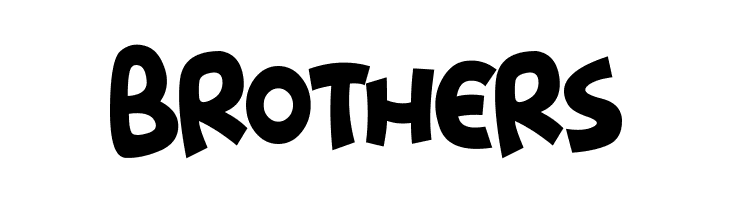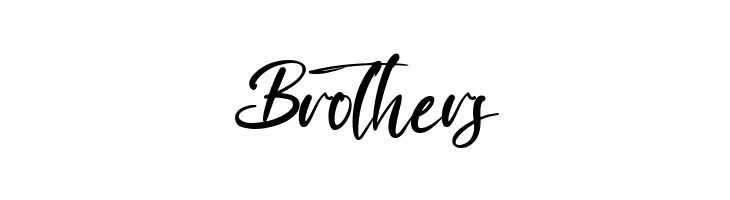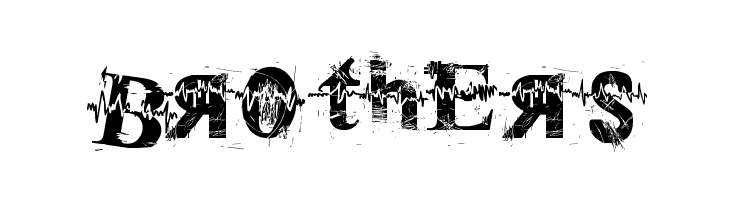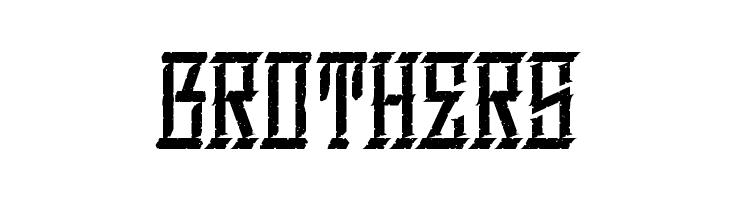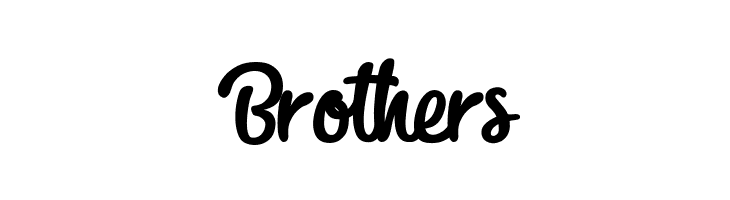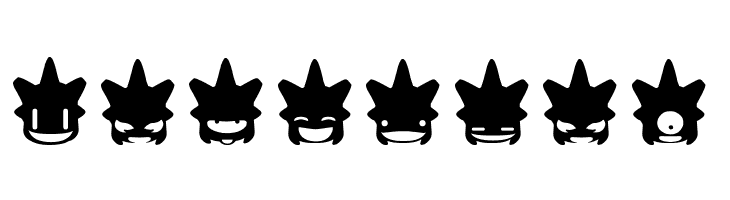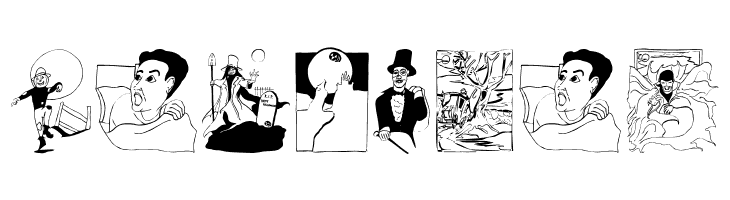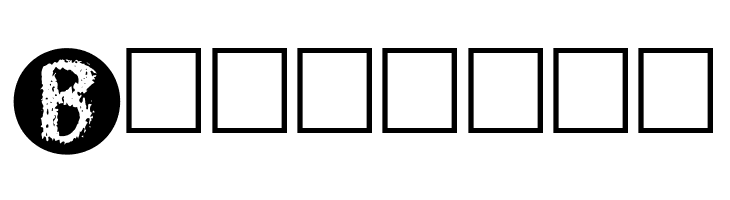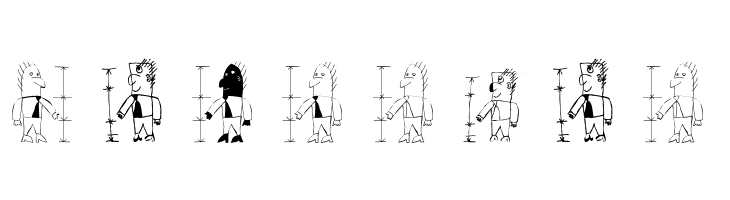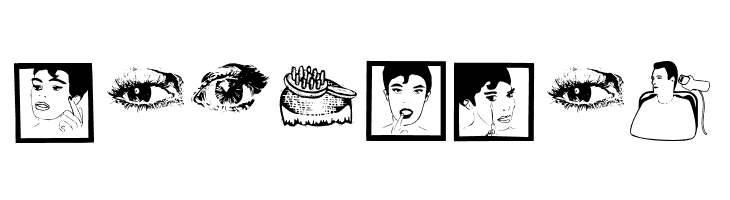
A playful dingbat font with office-themed icons like push pins and notes.
A bold, geometric font with an industrial, mechanical style.
A rugged, angular font inspired by ancient runes with a bold, hand-carved appearance.
A decorative font inspired by Viking and ancient runic symbols with a mystical, hand-drawn style.
A creepy, dripping font perfect for horror themes.
An elegant and ornate script font with intricate swashes and flowing letterforms.
A bold, flowing script font with a handwritten, artistic style.
An elegant, flowing script font with smooth, cursive strokes.
An elegant, ornate script font with flowing swirls and flourishes.
A decorative font inspired by printed circuit board designs, featuring intricate line patterns.
A bold, textured font with a jagged, hand-drawn appearance.
Illustrative font with beauty and makeup pictograms.
Illustrative display font with profile heads and totemic symbols.
Decorative font using illustrated human profiles and tribal-style symbols.
A bold, geometric font with a futuristic, tech-inspired design.
A bold, geometric font with a futuristic and tech-inspired design.
A bold, italicized font with a modern, geometric style.
A bold, italic font with a futuristic and dynamic design.
A bold, geometric font with a modern and impactful style.
A playful Halloween-themed font with characters inside pumpkin shapes.
A playful, bold handwritten font with smooth, rounded edges and a casual style.
A playful, bold font with a hand-drawn, whimsical style and rounded, lively characters.
A playful, bold handwritten font with a whimsical and friendly style.
A decorative Halloween-themed font with each character as a unique illustration.
A bold, angular font with a distressed, rugged appearance.
Expressive punk smiley faces form each character in a bold, decorative style.
A dynamic, brush-style font with an expressive, handwritten look.
A dynamic and fluid script font with smooth, flowing lines and a lively appearance.